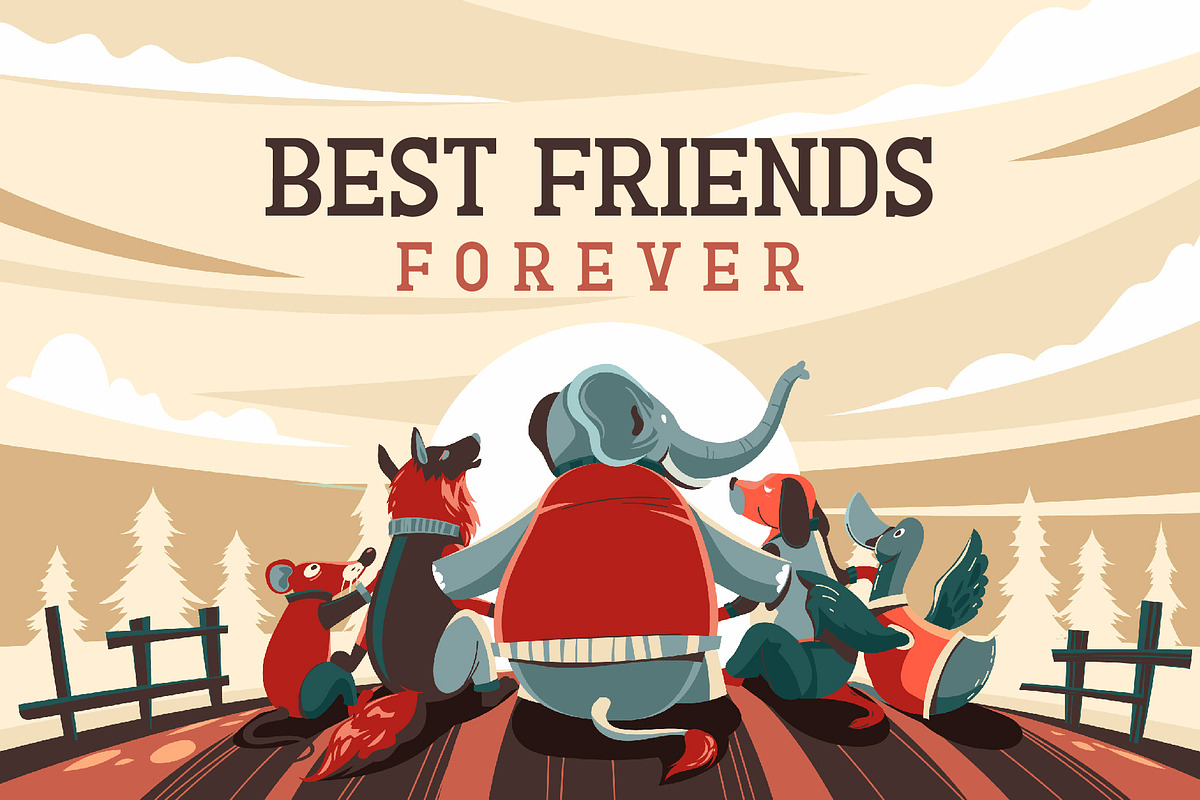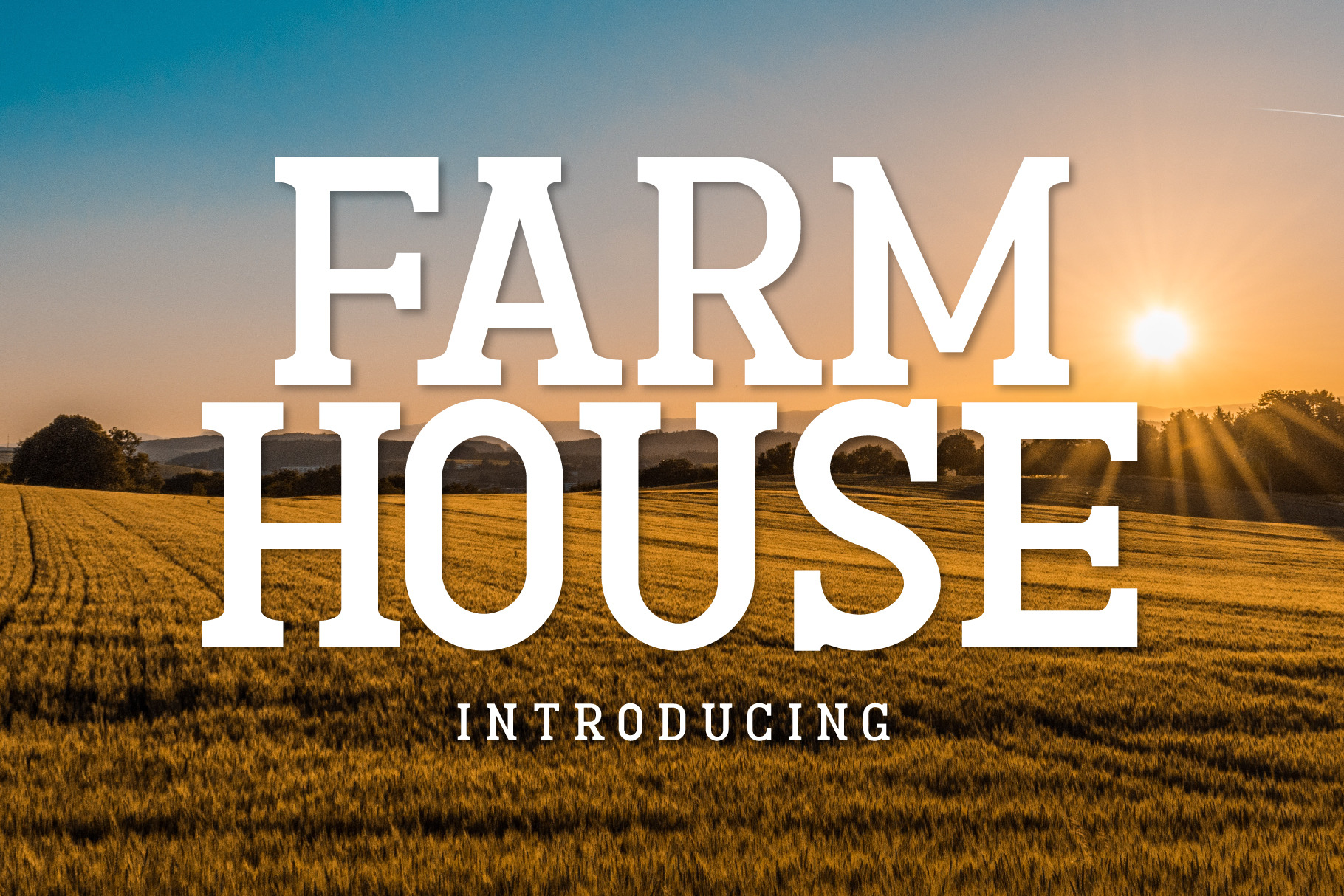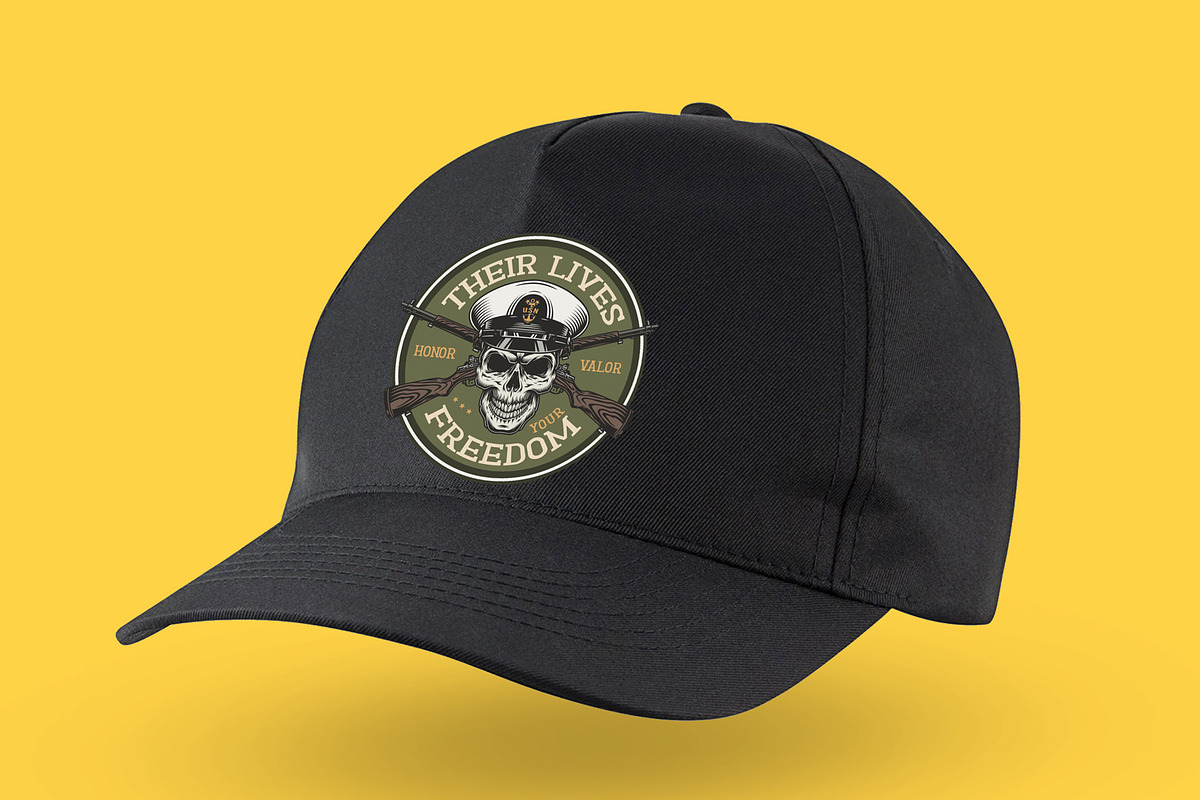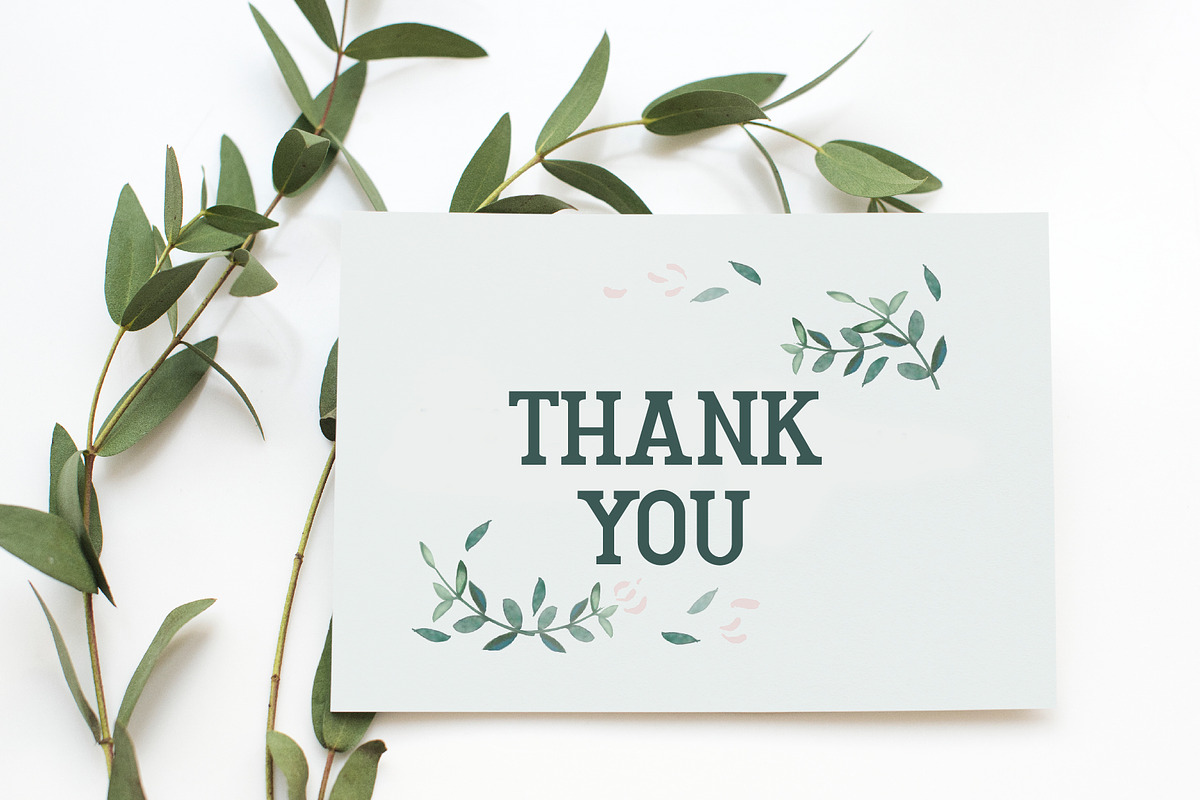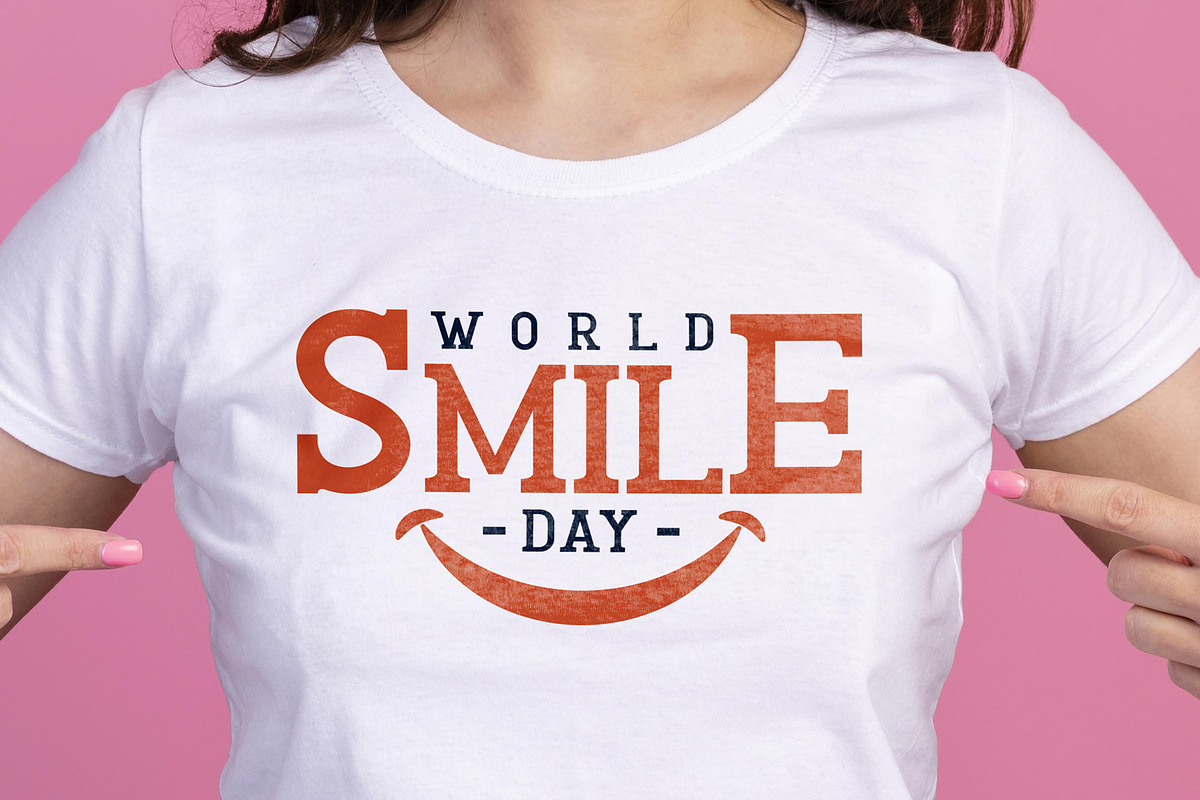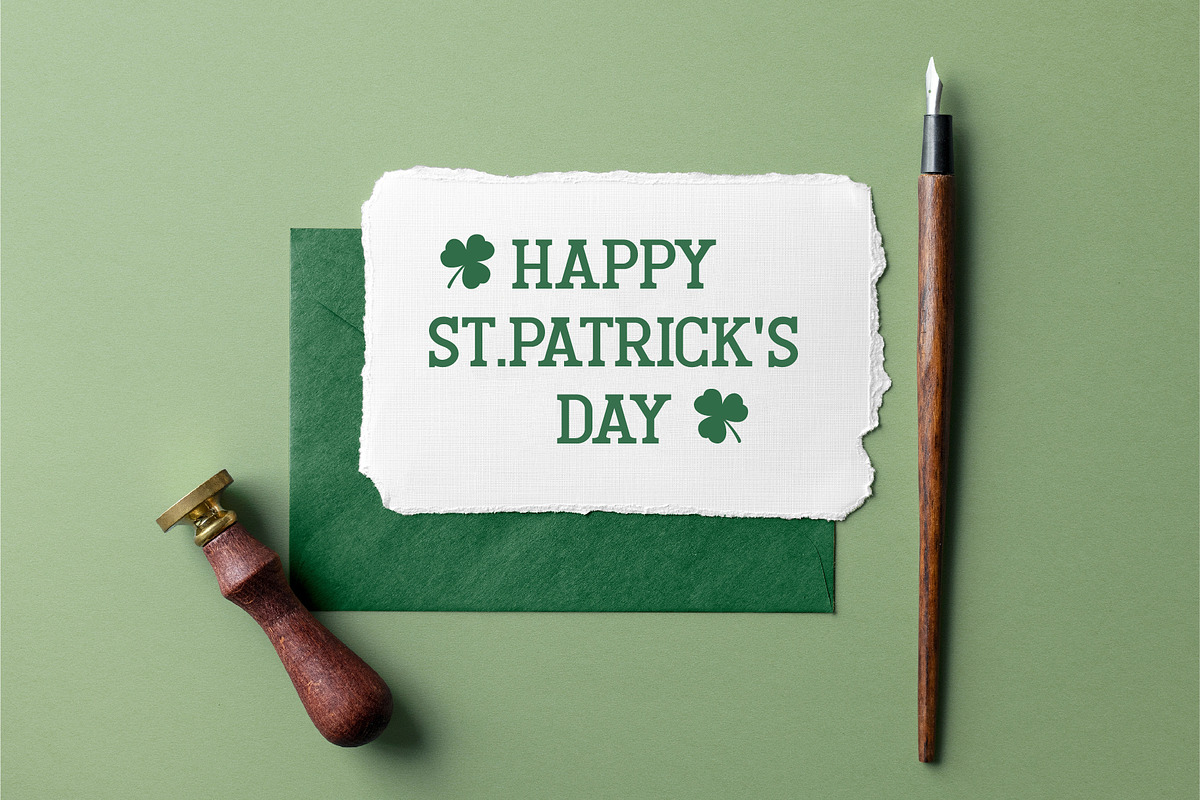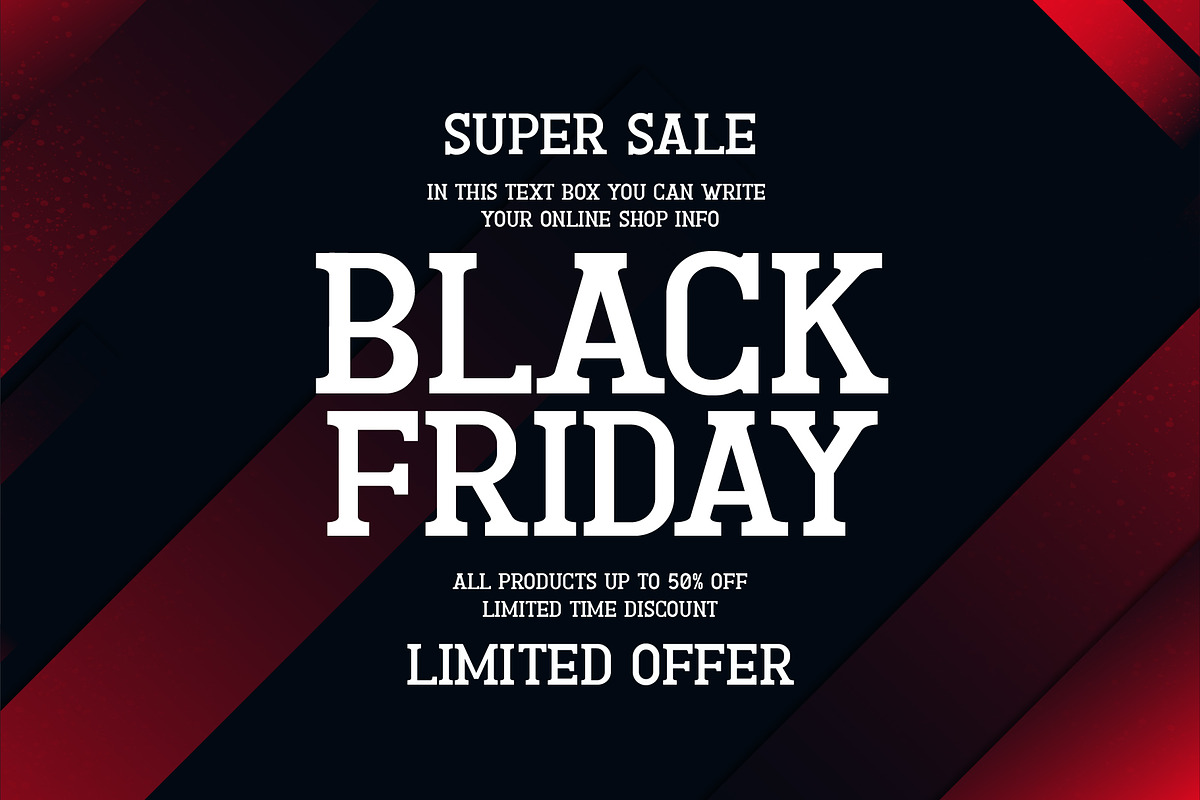
Farmhouse Font
Farmhouse is a simple yet versatile slab serif font. This typeface is perfect for elegant and vintage logos, book or movie title designs, fashion brands, magazines, clothes, lettering, quotes, etc. Add this font to your favorite creative ideas and notice how it makes them come alive!